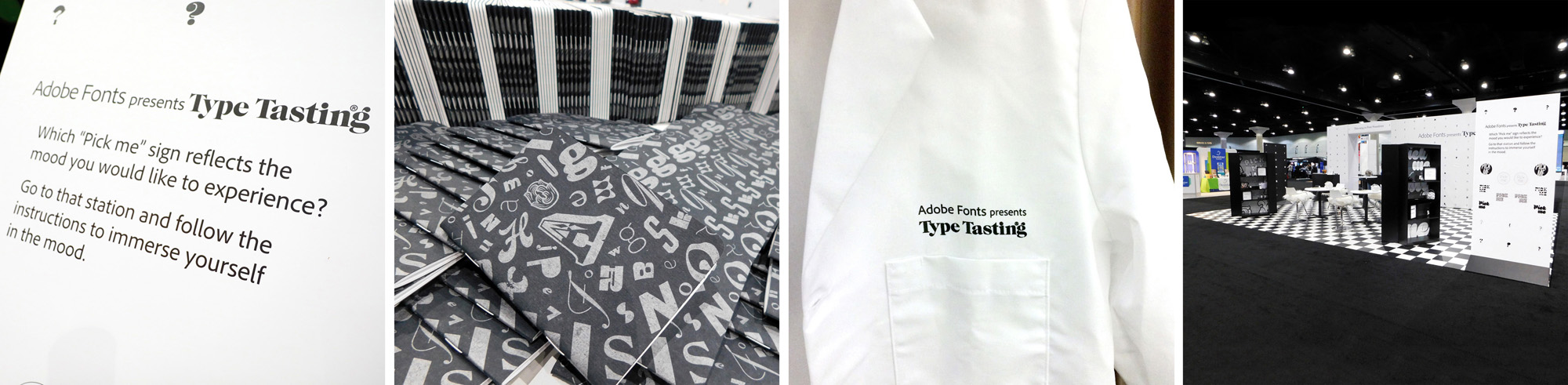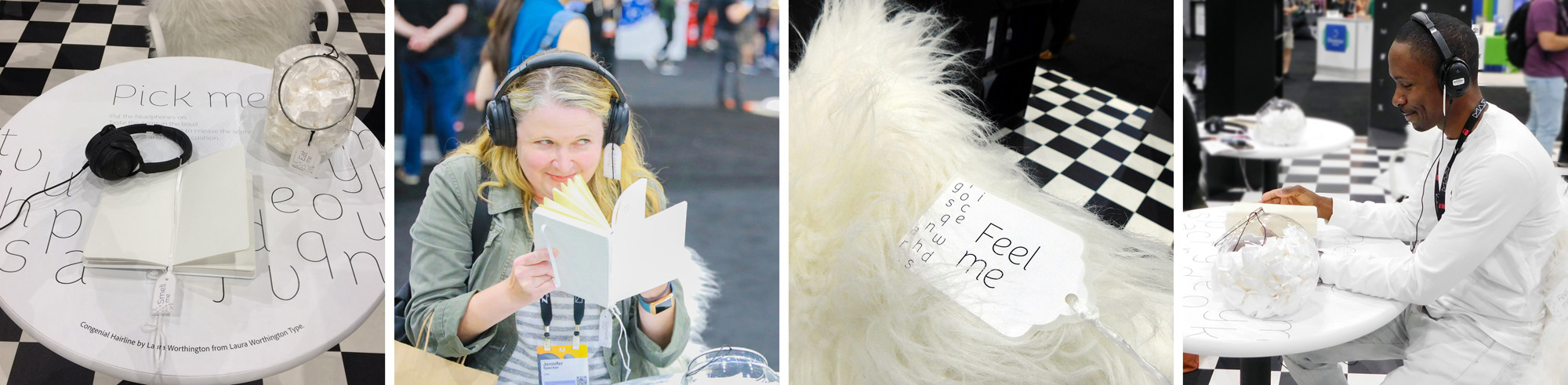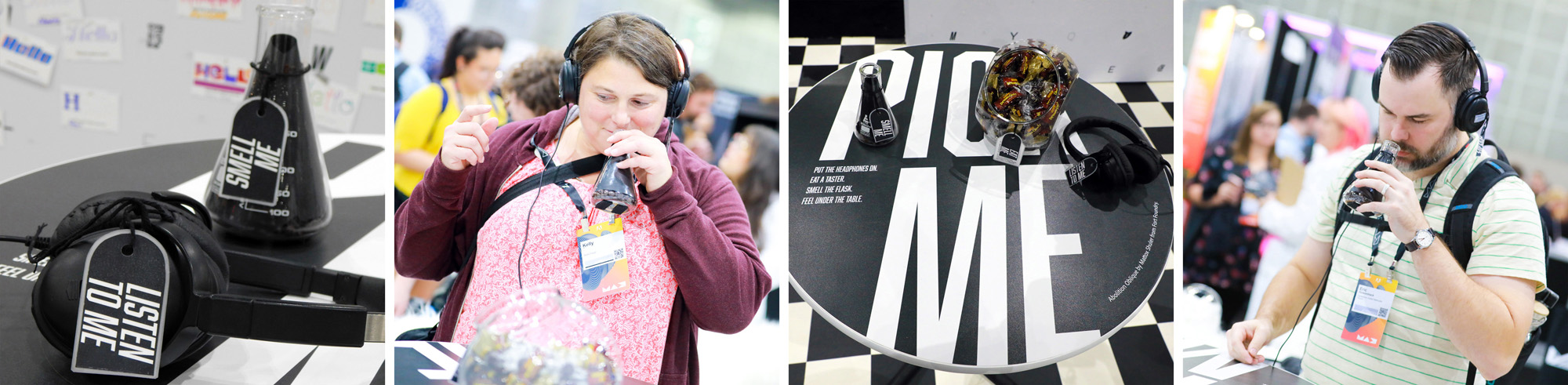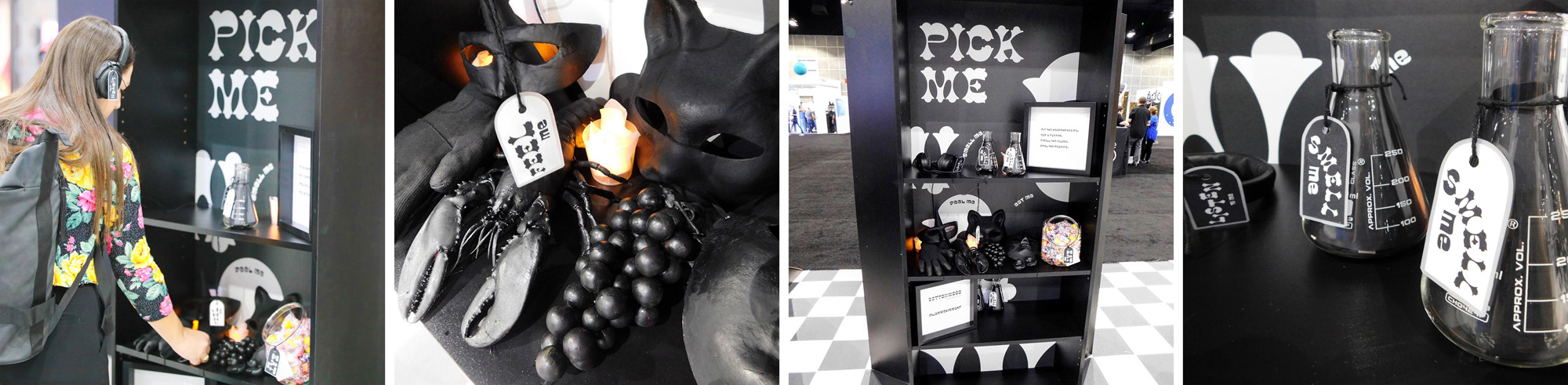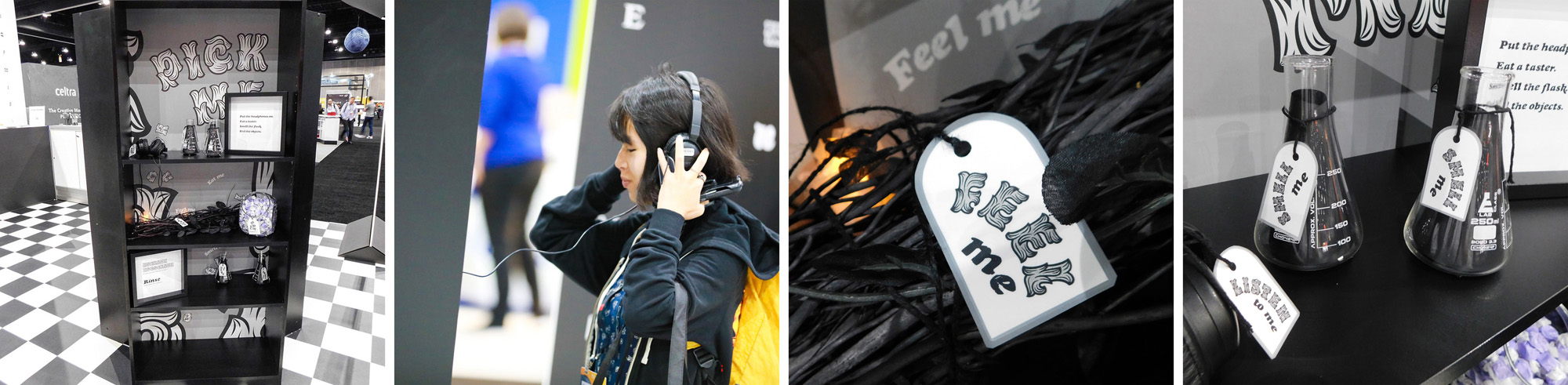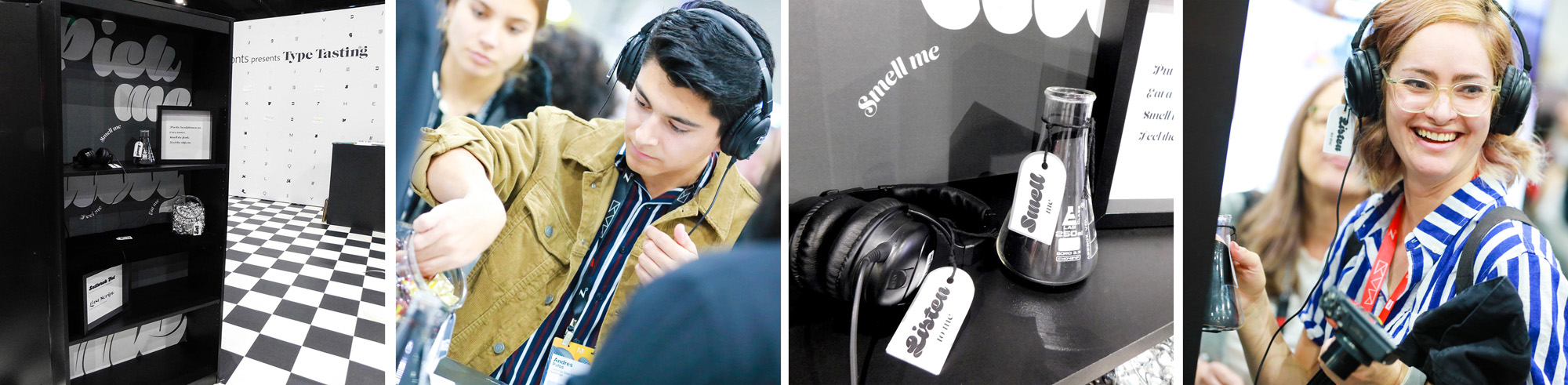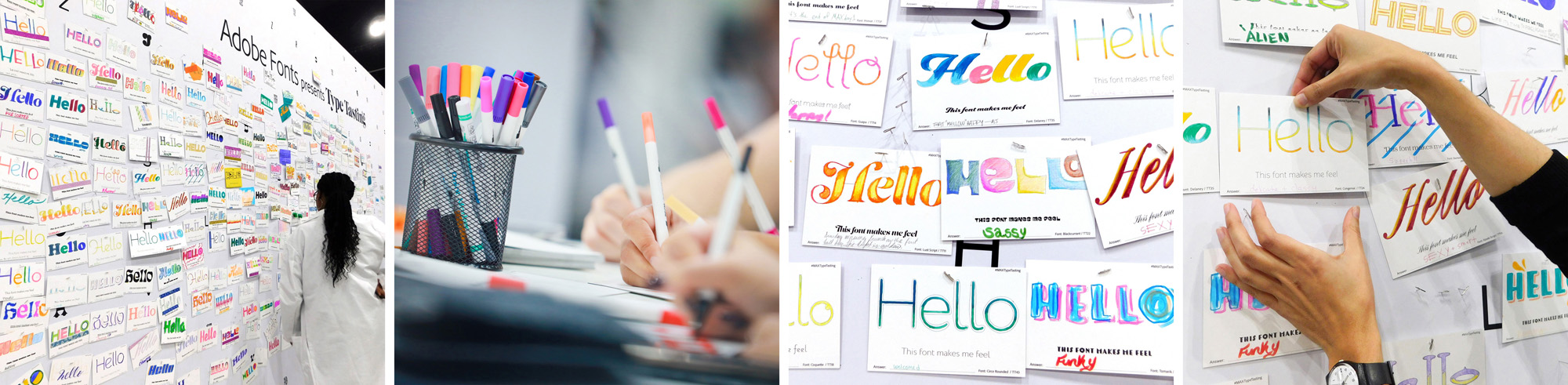
Type Tasting created a large-scale multisensory installation for Adobe Fonts at the Adobe MAX conference in Los Angeles from 2nd to 6th November 2019.
Visitors were immersed in the mood of different typefaces through all of their senses. At each station they were invited to put on headphones, to smell a scent in a jar or by flipping the pages of a book, to eat a small taster and to feel a texture. Each set of stimuli was designed to bring a mood to life in the participant’s imagination. There was curiosity and intrigue as the first visitors arrived and they were soon returning with groups of friends saying “you have to try this”.
Station 3: intriguing
Station 4: natural
Station 5: indulgent
Typeface/mood data collection as a creative exercise